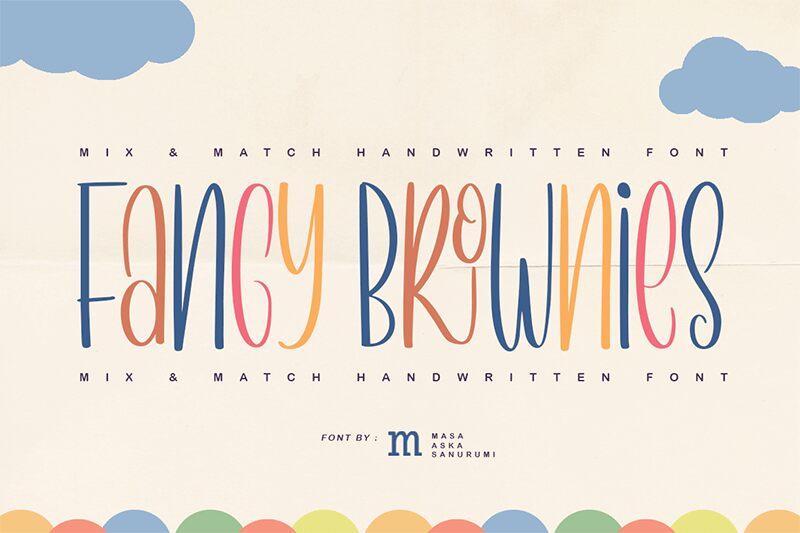
Delve into the charming world of Fancy Brownies, a calligraphy font crafted with a whimsical touch by Masa Aska Sanurumi. This light-weight typeface dances on the page with a delightful blend of elegance and playfulness, making it an ideal choice for designers who wish to inject personality and warmth into their work.
With its versatile nature, Fancy Brownies fits seamlessly into an array of creative projects-from heartwarming greeting cards to eye-catching headlines. Adding this font to your design toolkit promises to infuse your creations with a clean, fun feel that speaks directly to the hearts of your audience.